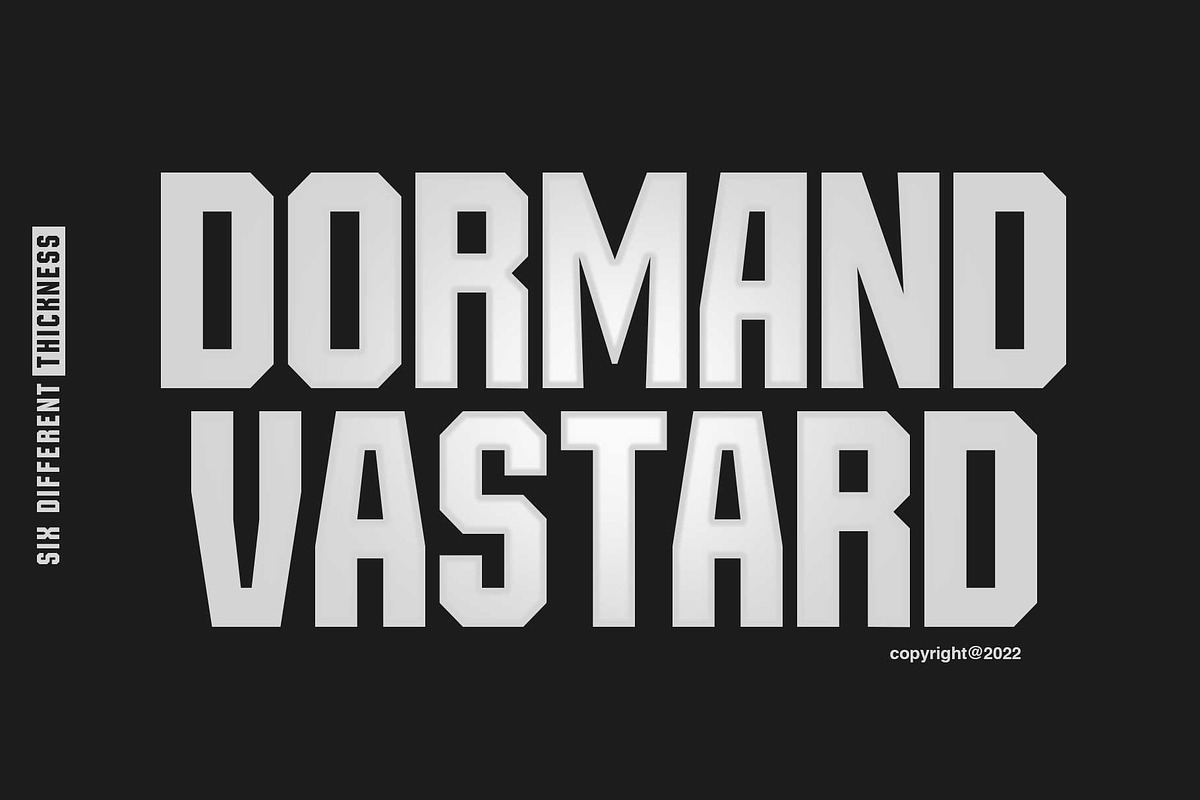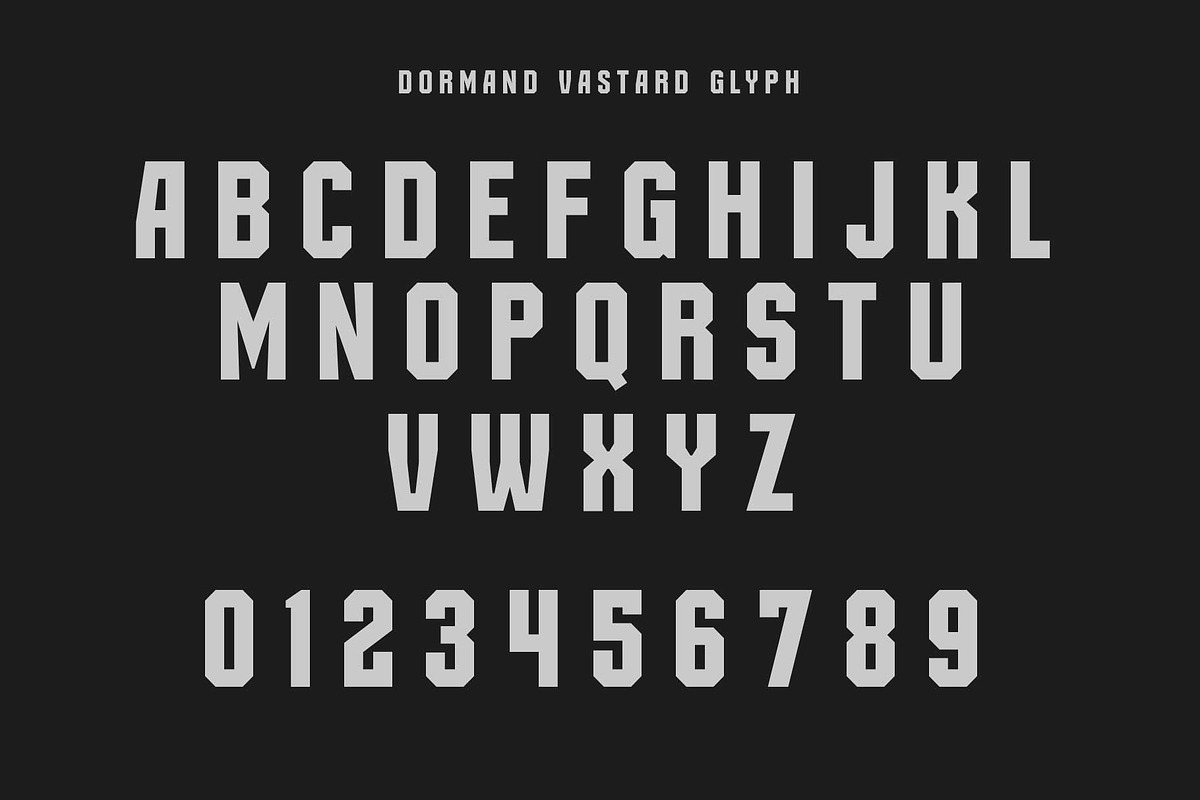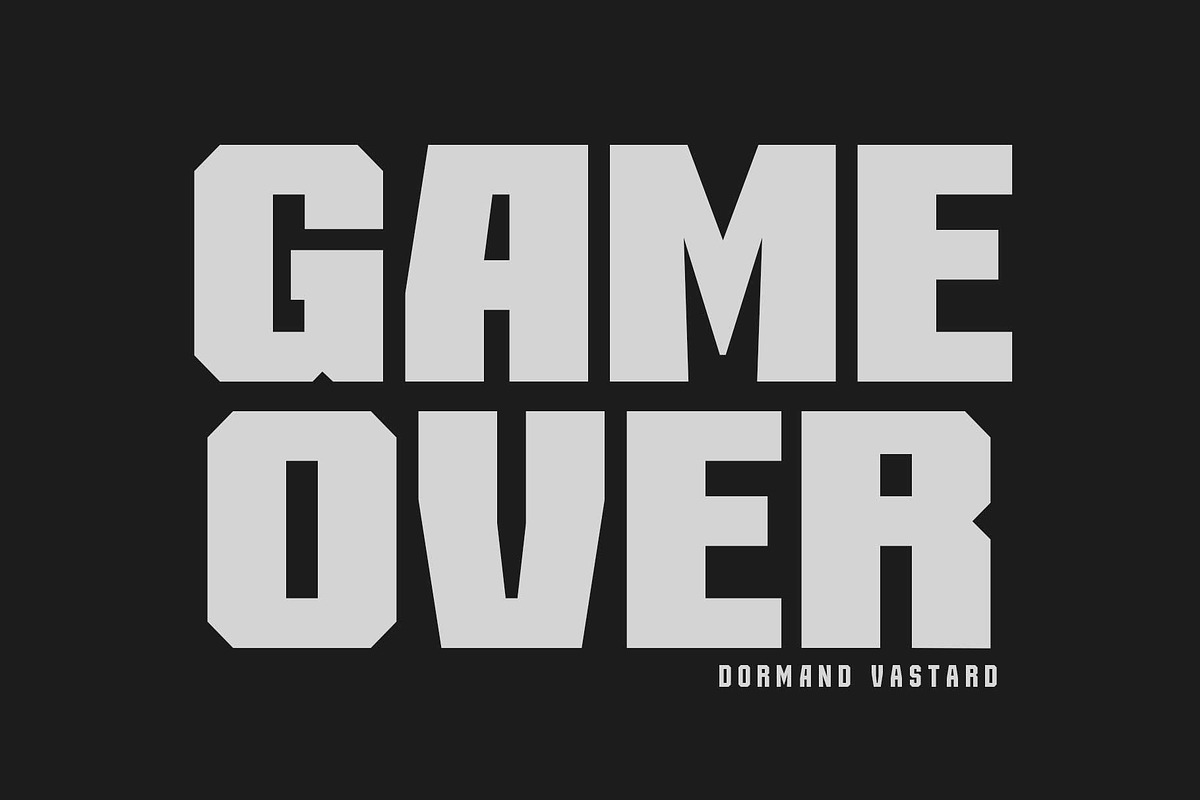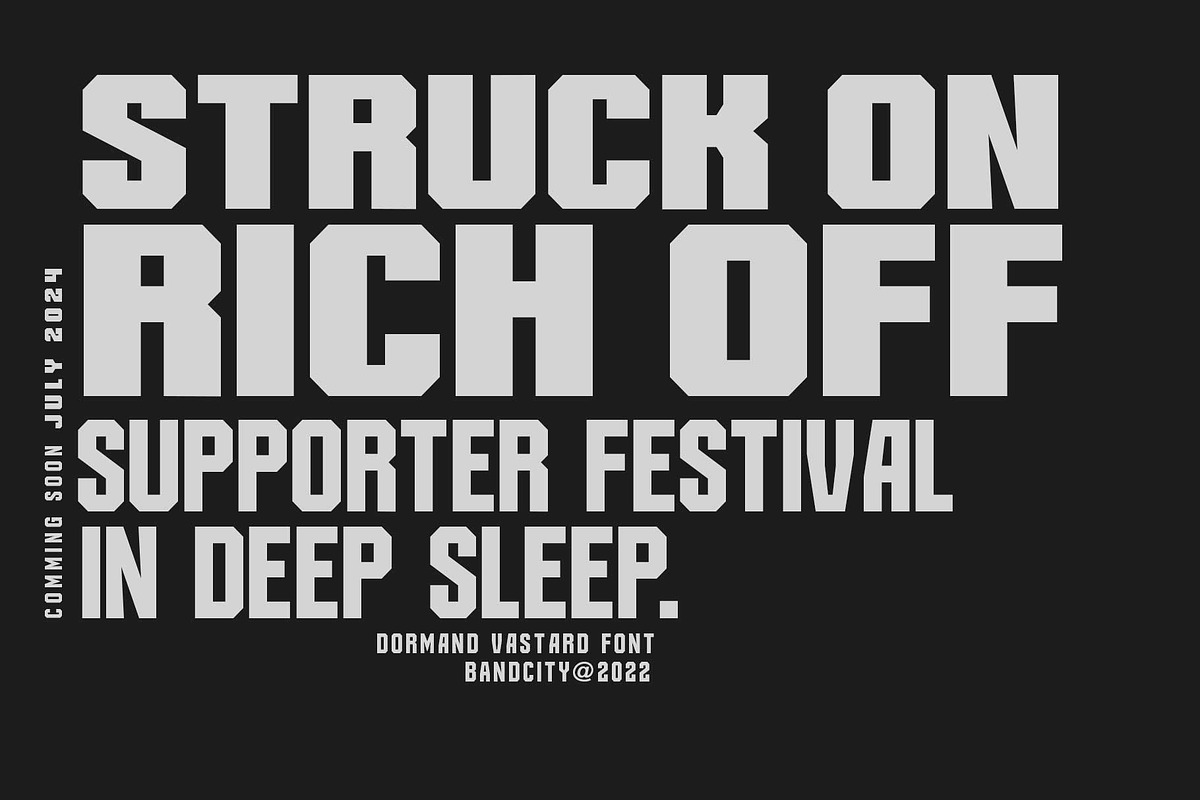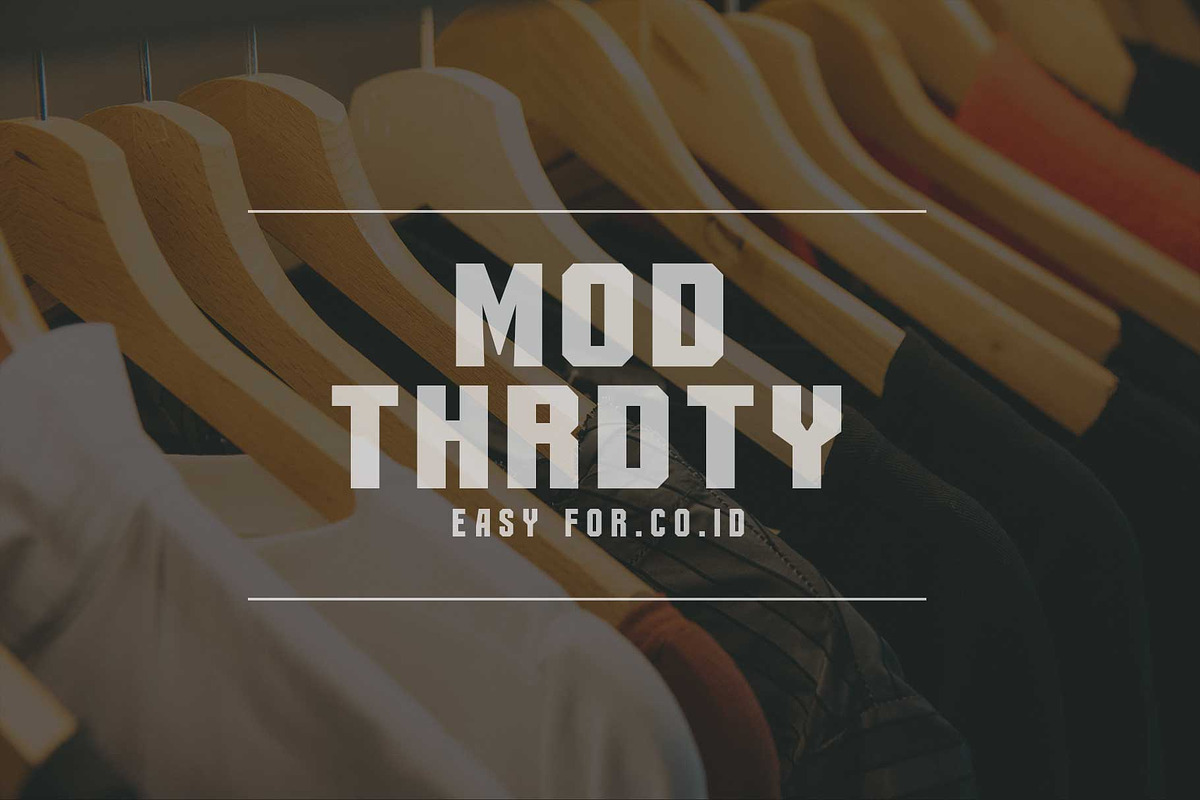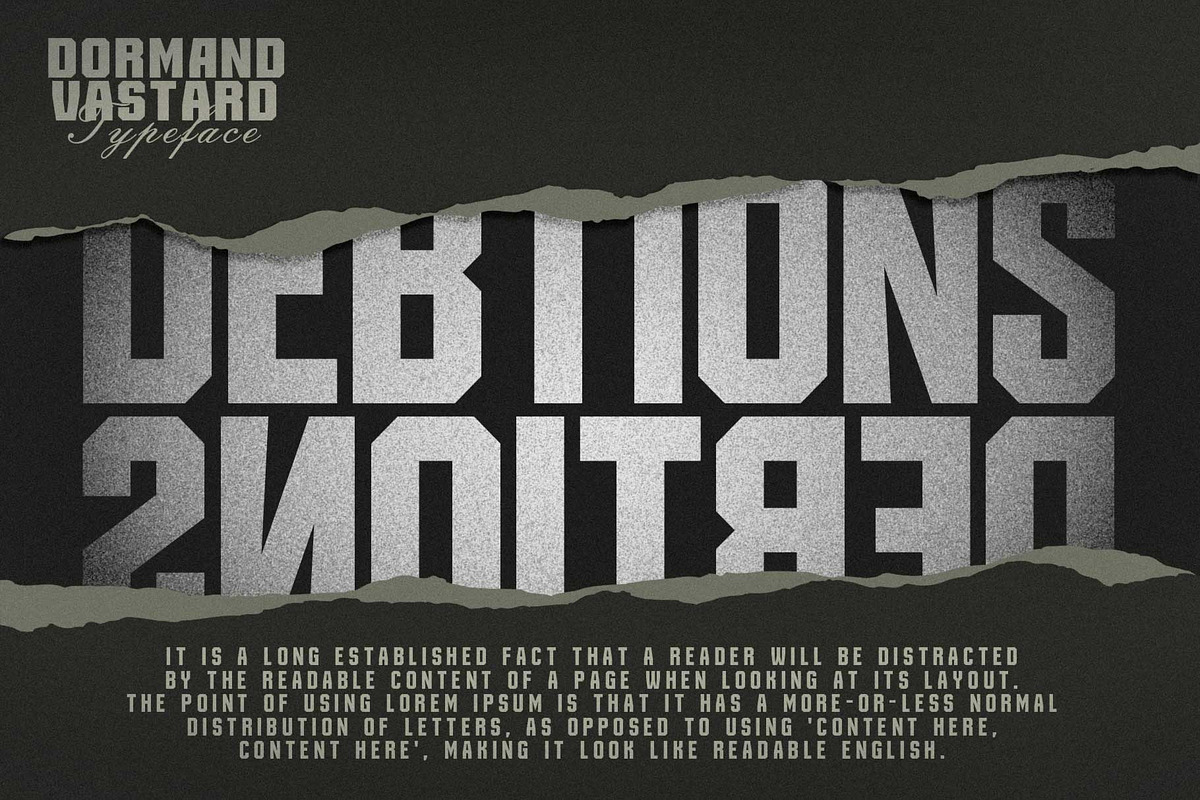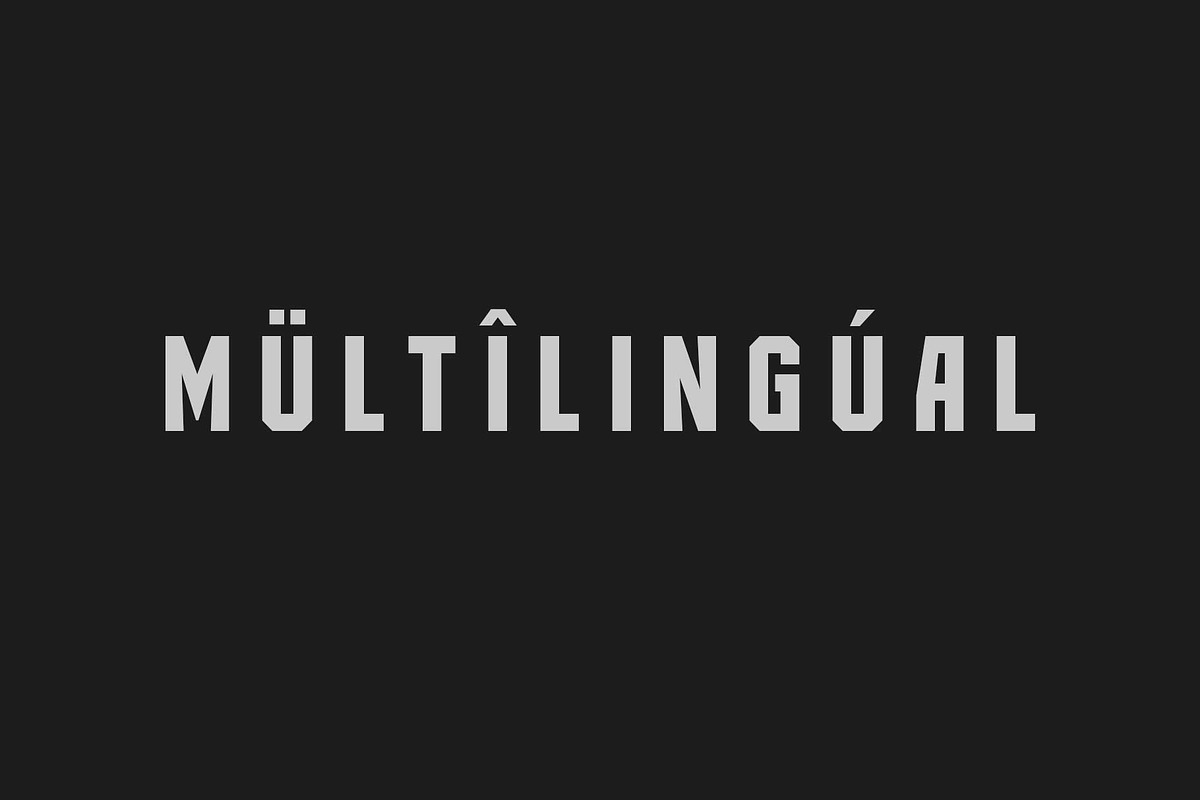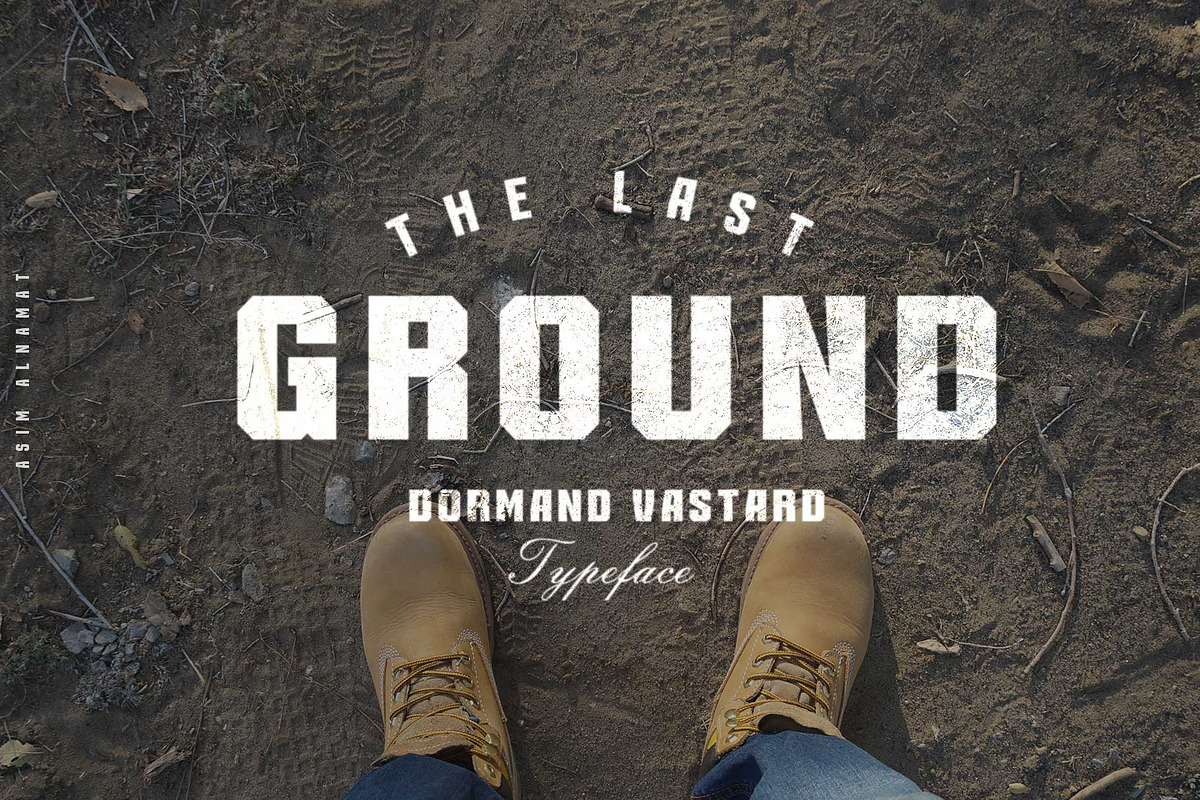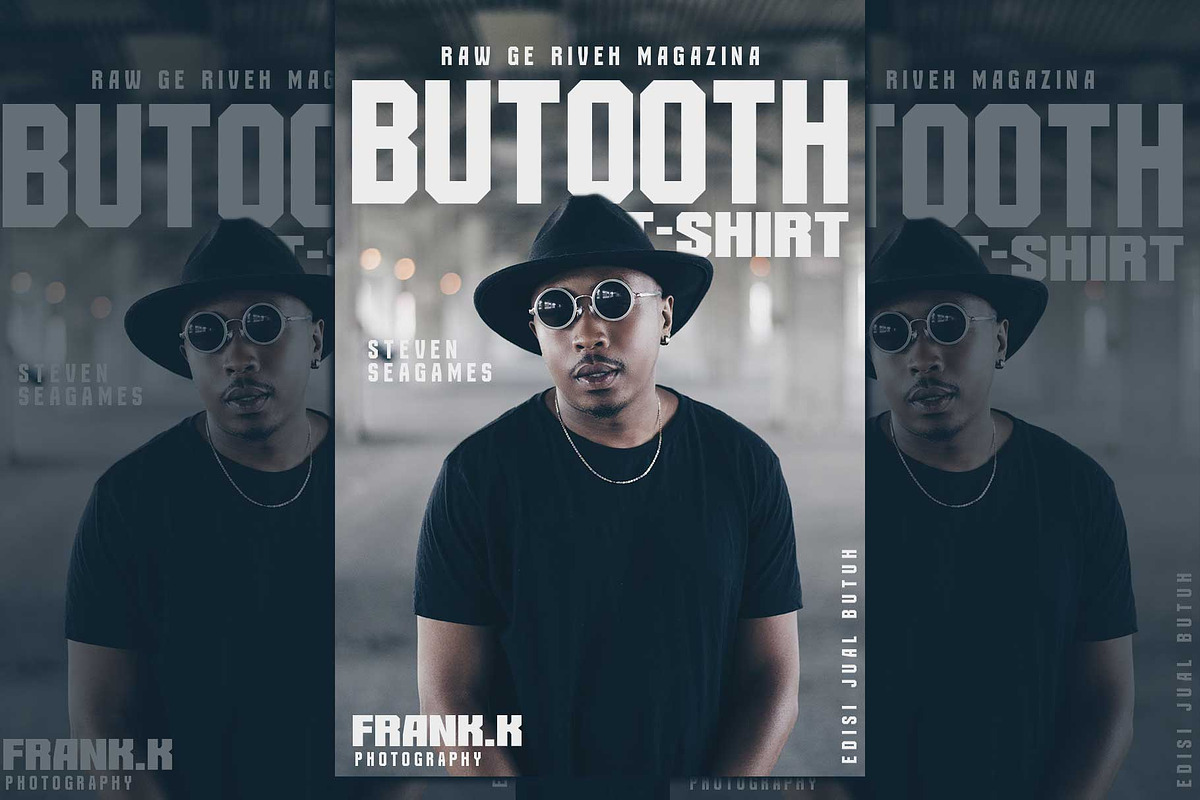
Dormand Vastard
is a sporty and attractive font, complemented by different thicknesses. Of course it will be very helpful and make your work more competitive and sporty.
This product consists of 6 font families with different thicknesses. try and get it soon